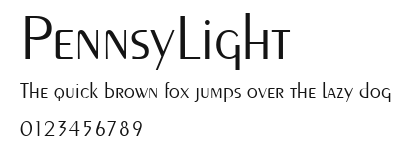
• Font Name: PennsyLight
About PennsyLight.ttf
PennsyLight.ttf is a modern, elegant sans-serif font designed for ultimate readability and visual harmony. Perfect for branding, headlines, web design, and print materials.